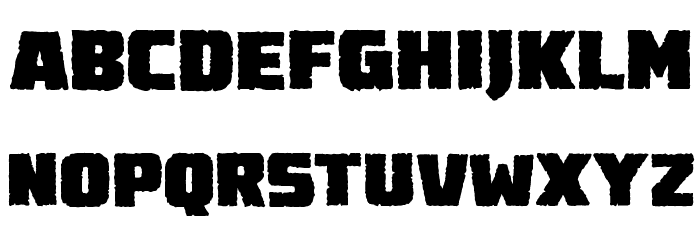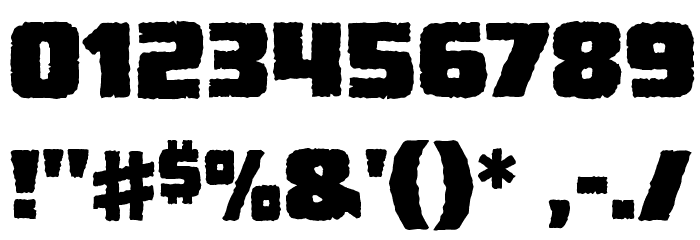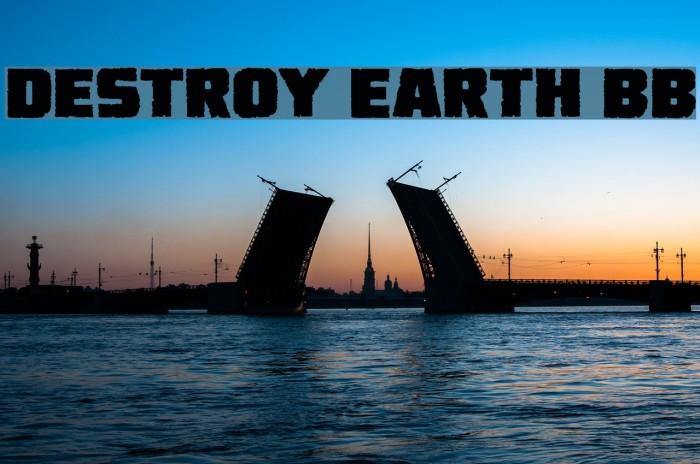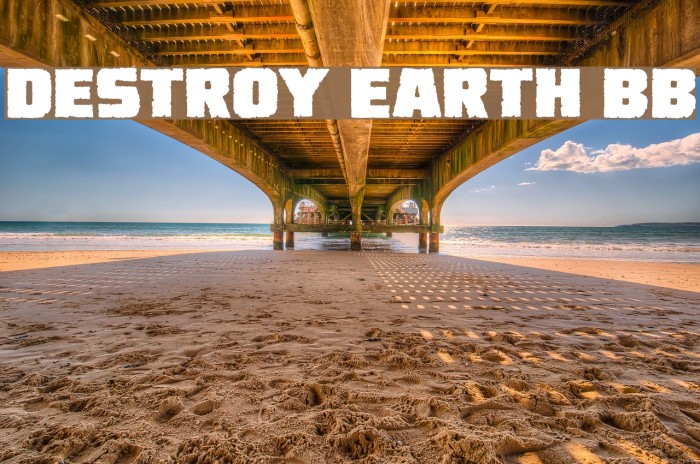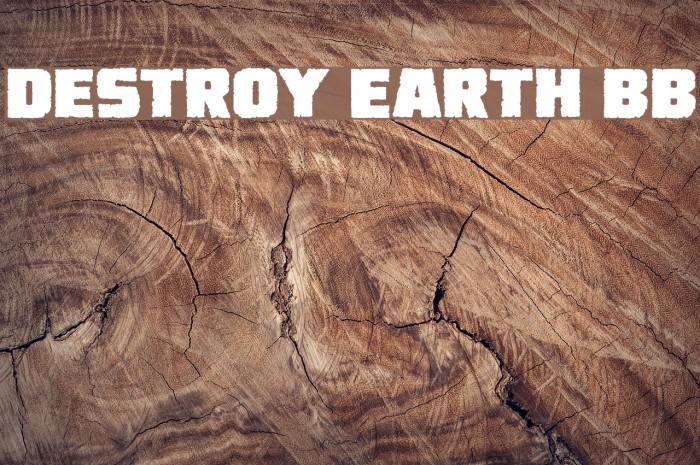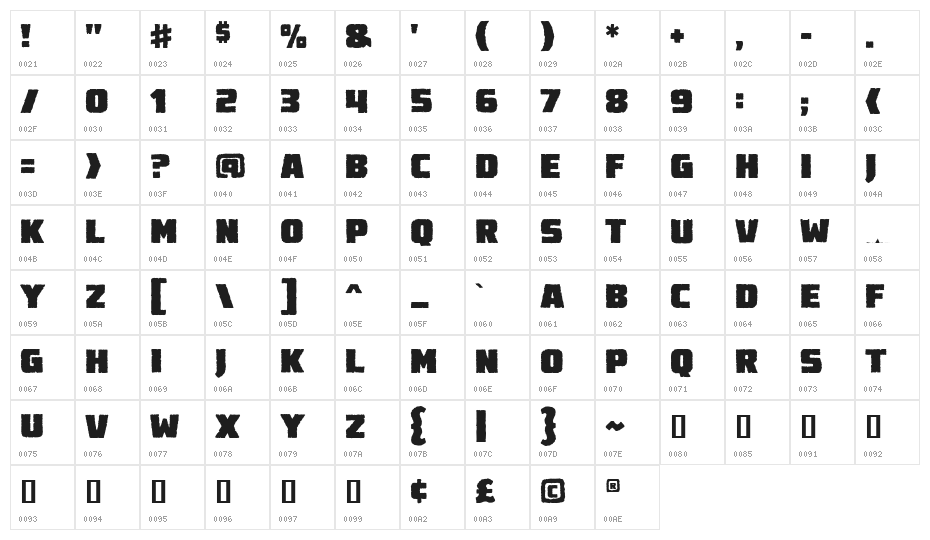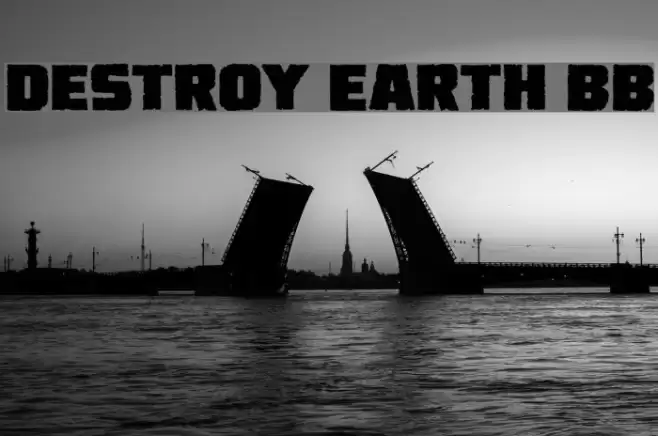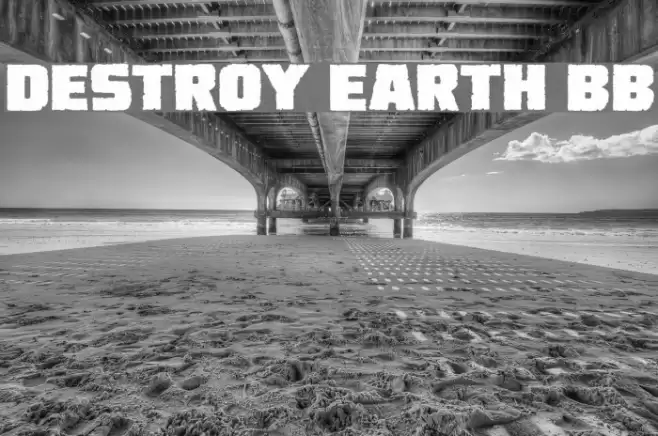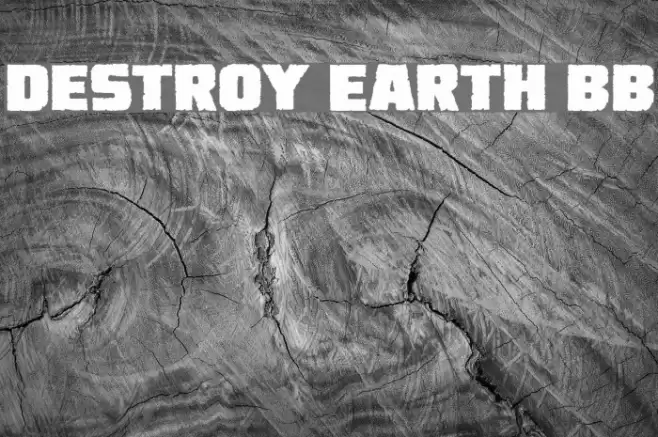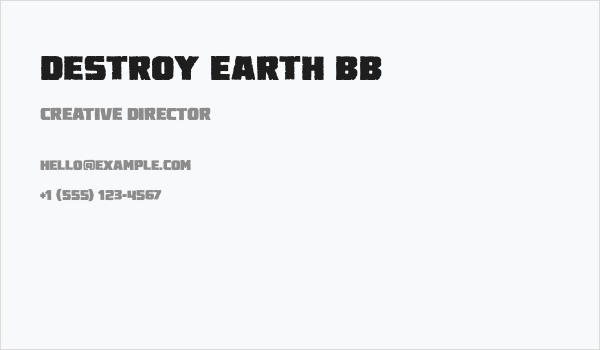
Destroy Earth BB Font
This font features a bold, rugged design with a distressed texture that gives it a gritty, impactful appearance. The characters are thick and blocky, with uneven edges that suggest a hand-crafted or worn look. This style is reminiscent of industrial or post-apocalyptic themes, making it ideal for projects that require a strong, attention-grabbing typeface. The uppercase and lowercase letters maintain a consistent weight, while the numerals and special characters follow the same bold and distressed aesthetic. The overall impression is one of strength and durability, with a unique character that stands out.
A bold, distressed font with a rugged, industrial feel.
- Font: Destroy Earth BB
- Proposed Projects: Ideal for posters, album covers, video game titles, and branding that requires a strong, edgy look.
- Overall Style: Industrial, Gritty, Bold